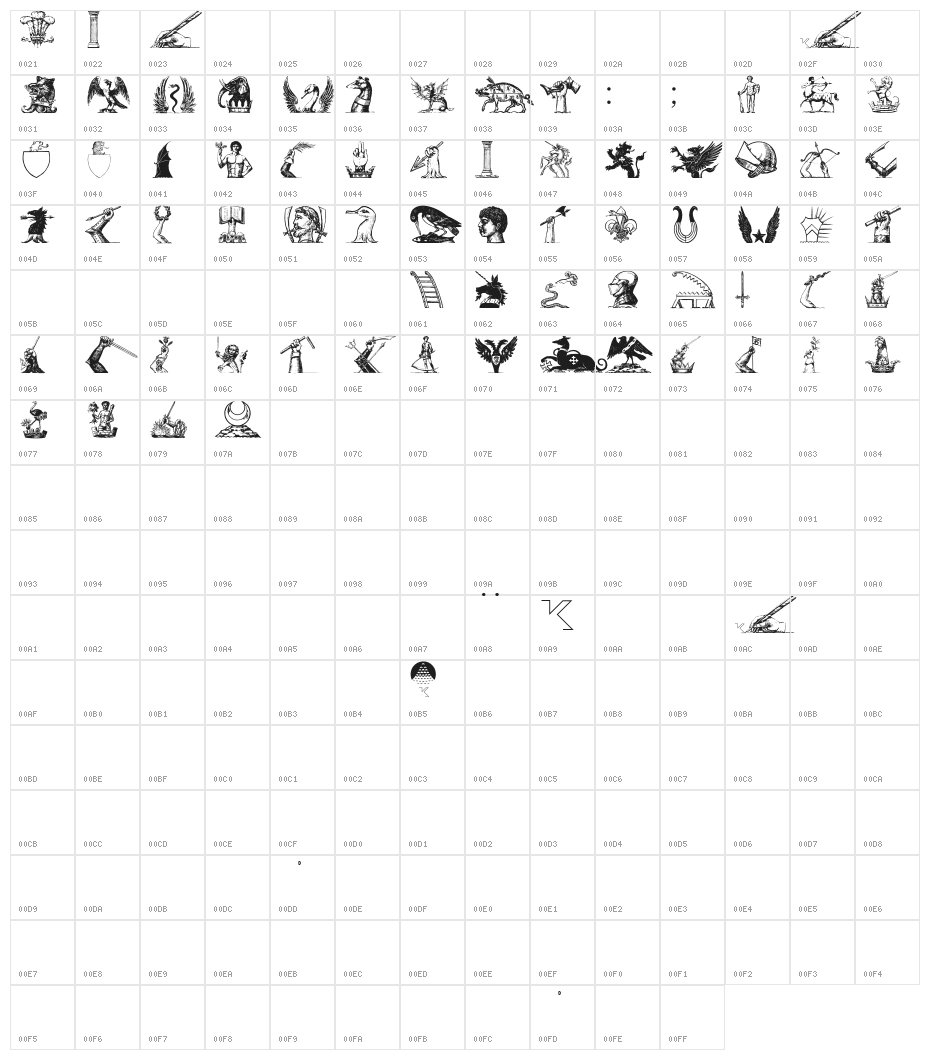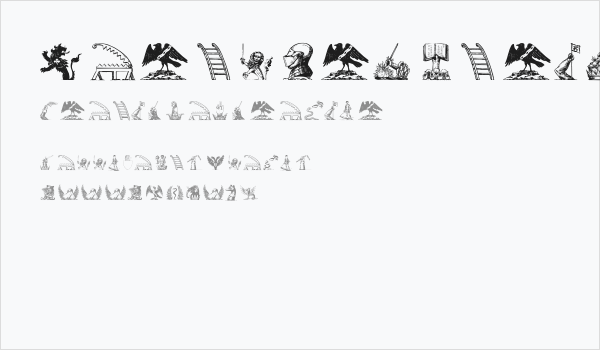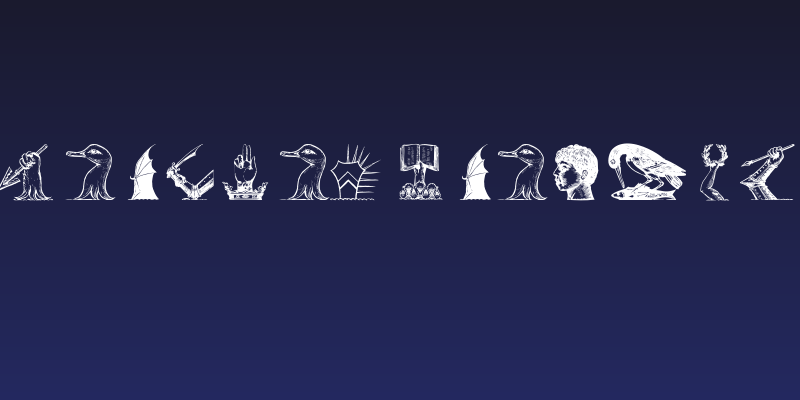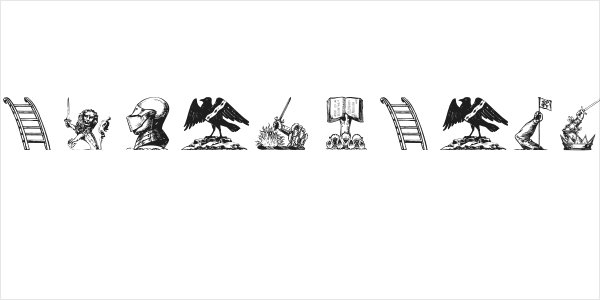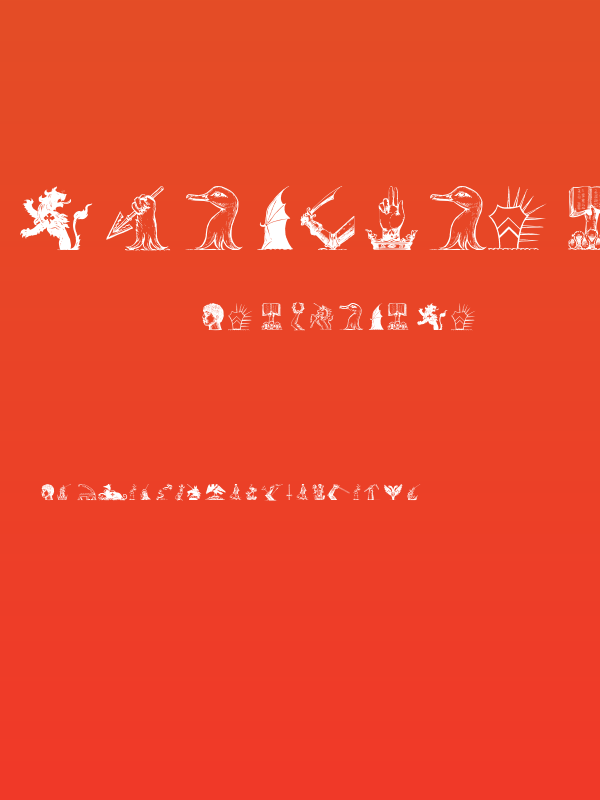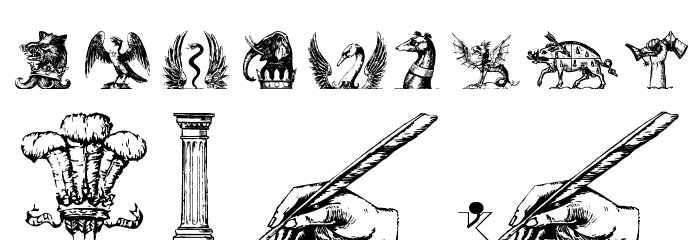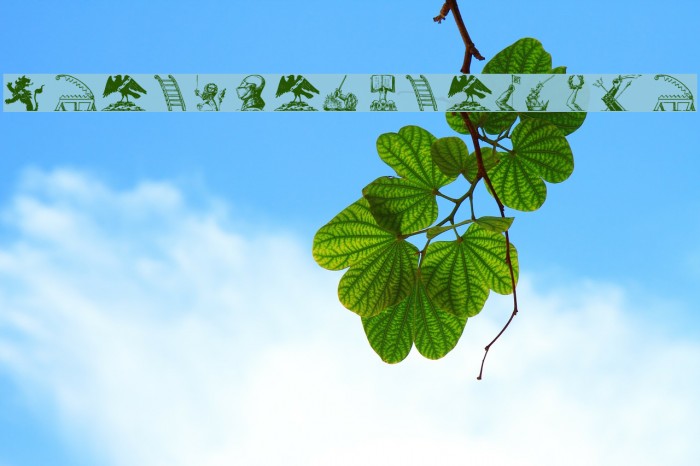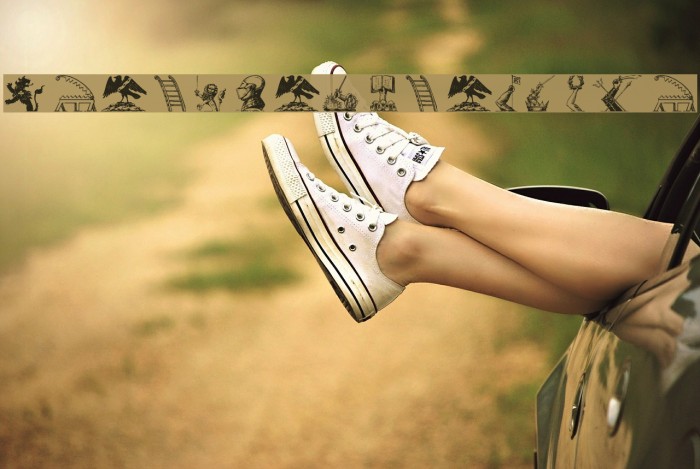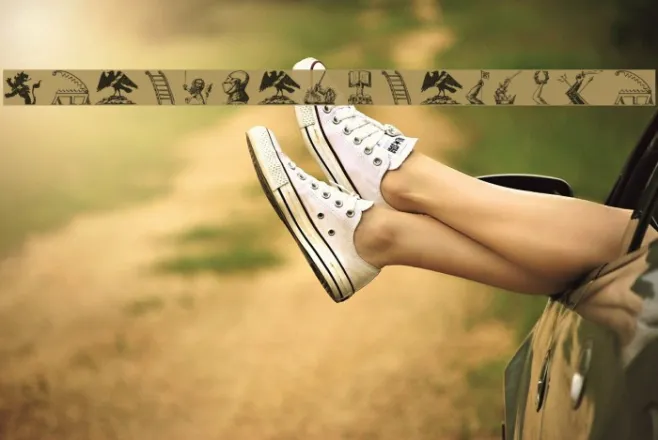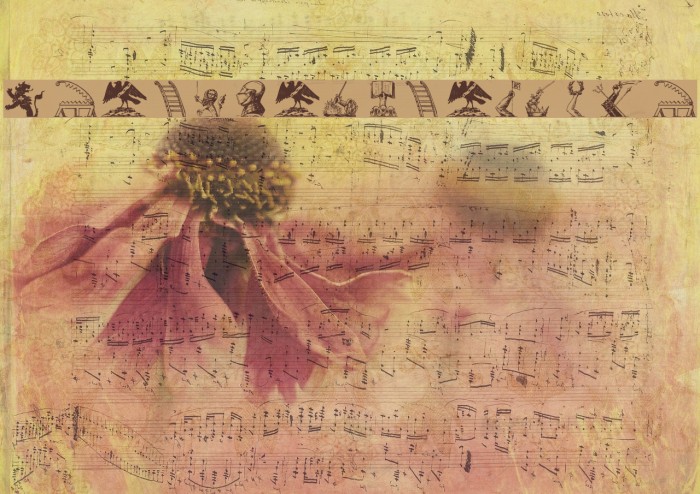
HeraldryPartsOne Font
HeraldryPartsOne Description
A highly decorative and illustrative set of glyphs featuring detailed heraldic symbols, animals, mythological figures, and objects, each rendered in a classic engraved style with intricate linework and shading.
| Overall Style | Vintage, Decorative, Classic |
| Use Case | Logos, Headlines, Thematic illustrations, Decorative initials |
| Proposed Projects | Book covers, certificates, historical documents, fantasy games, branding for luxury or heritage products. |